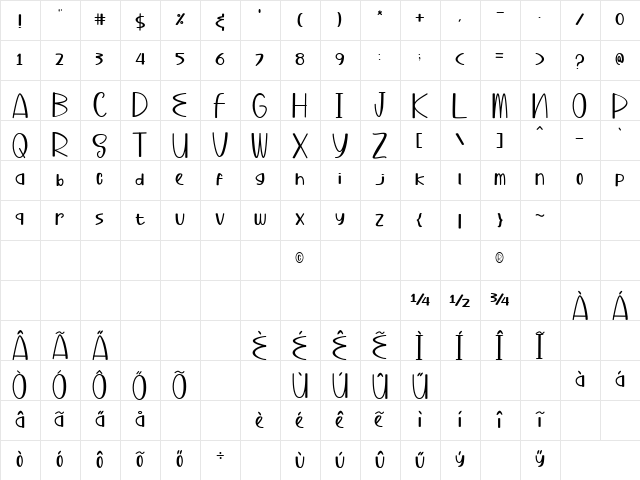
Buhary Regular
Design Context for Buhary Typeface
Buhary is a composed and adaptable typeface that performs quietly and consistently across a wide range of design contexts.